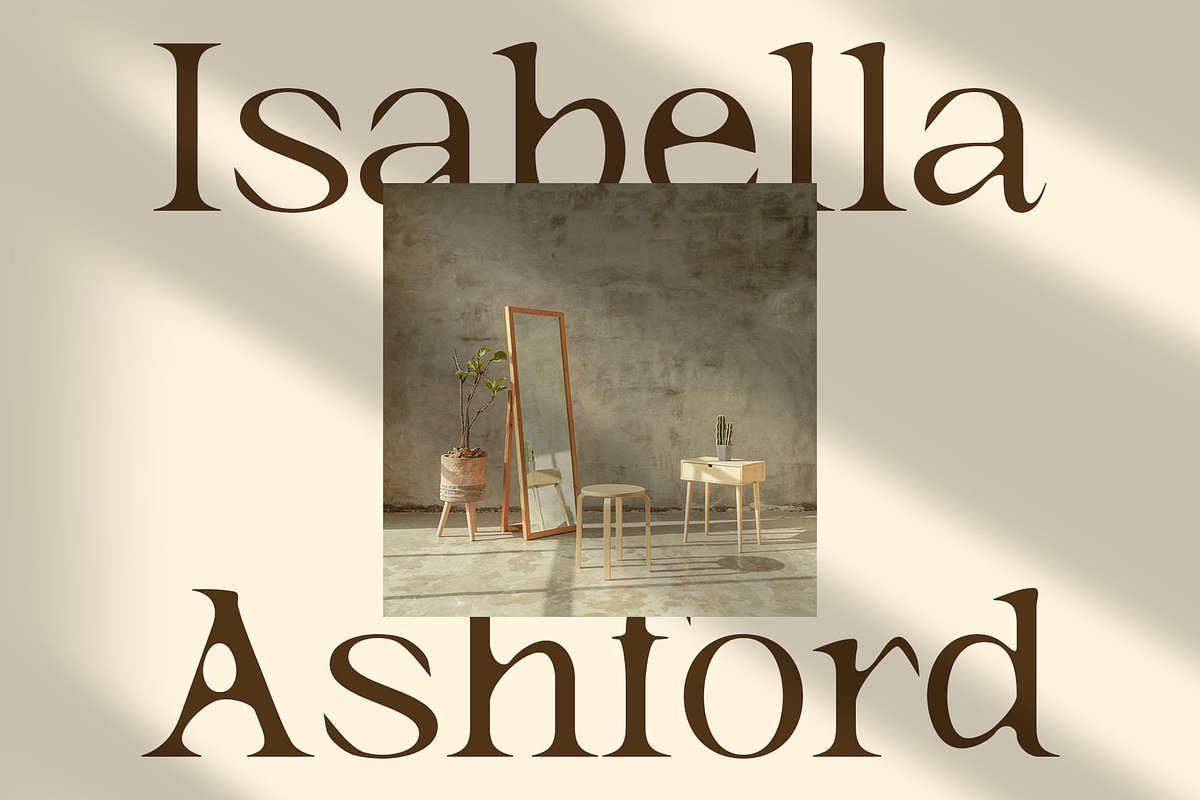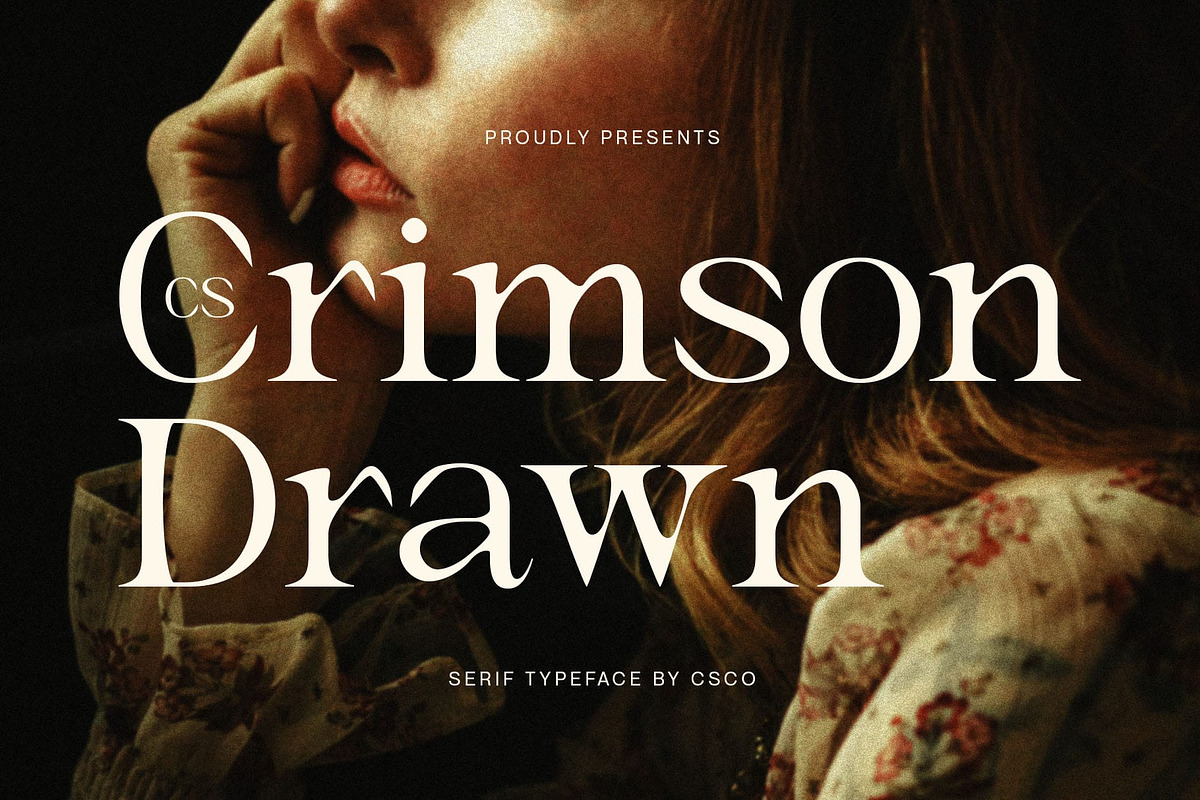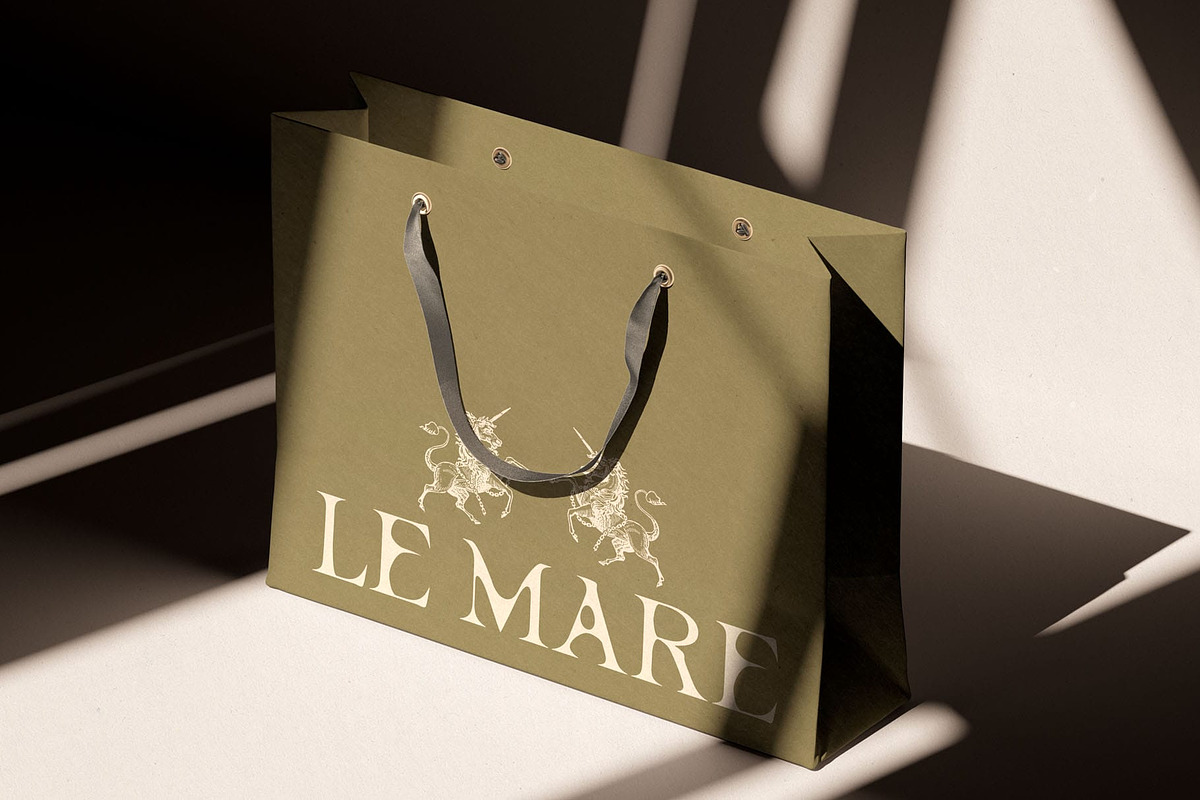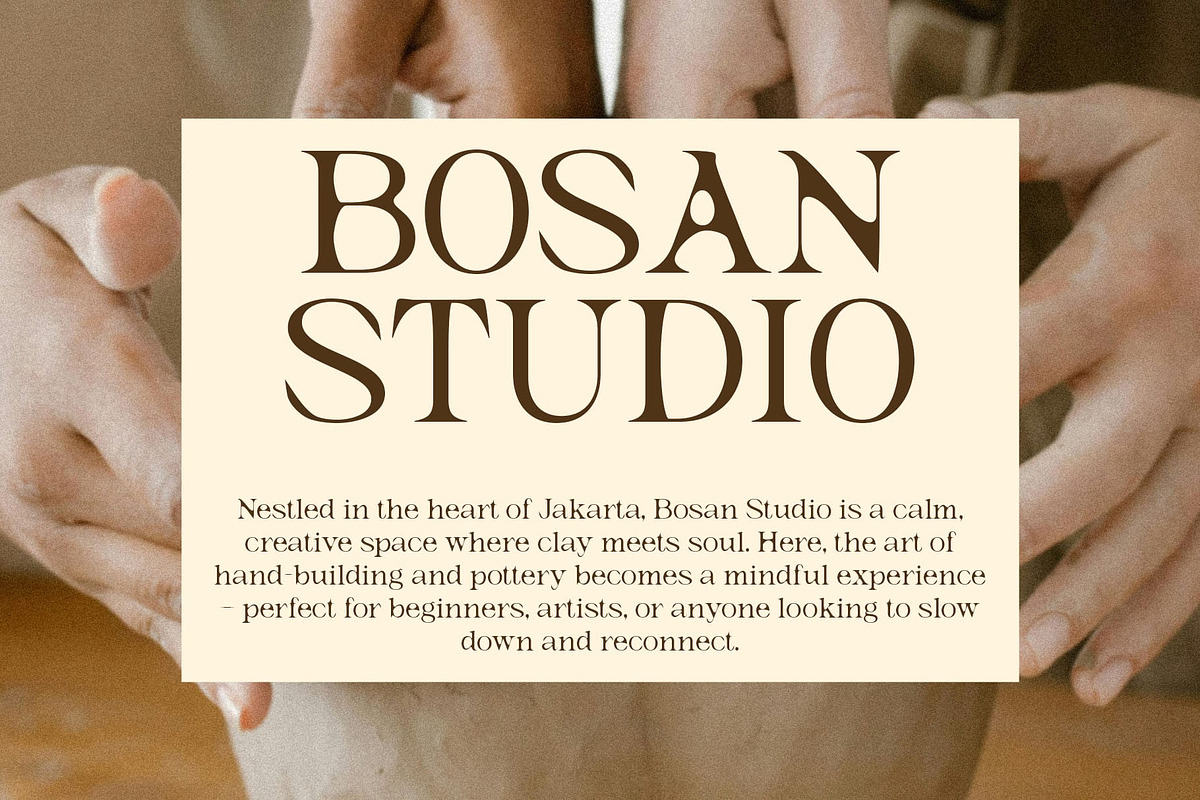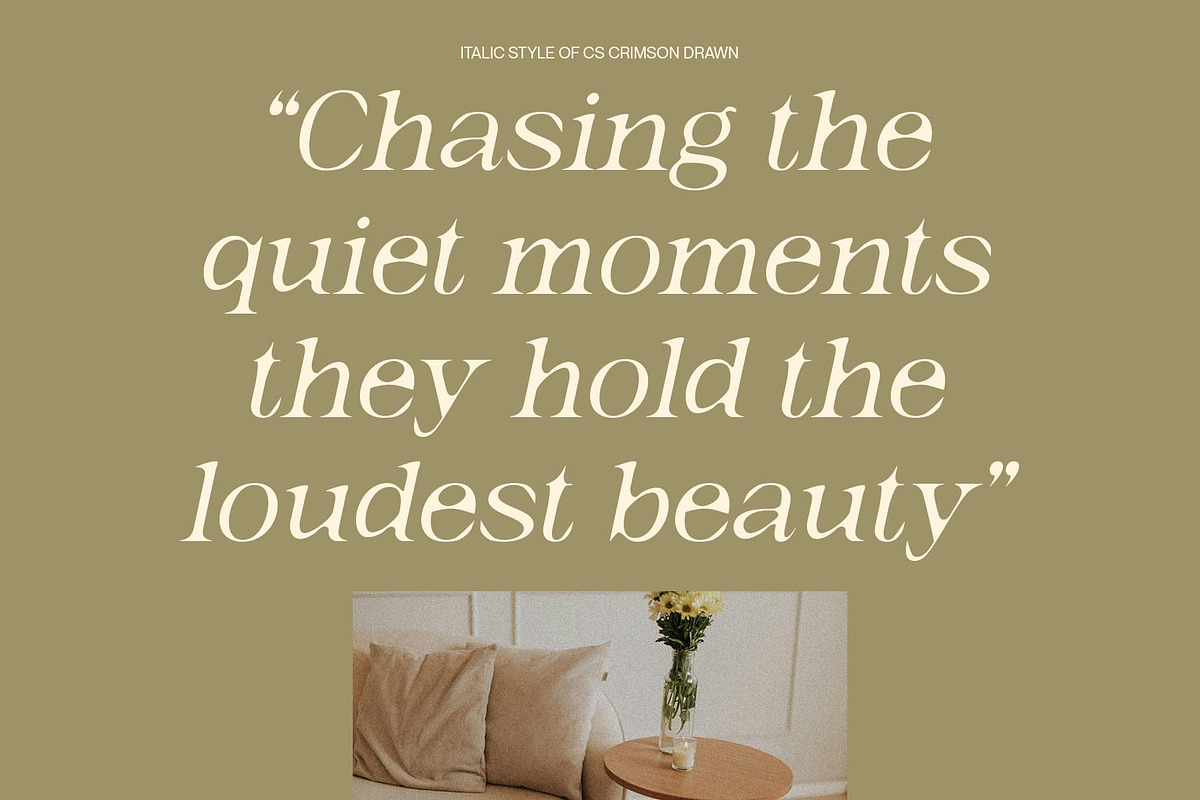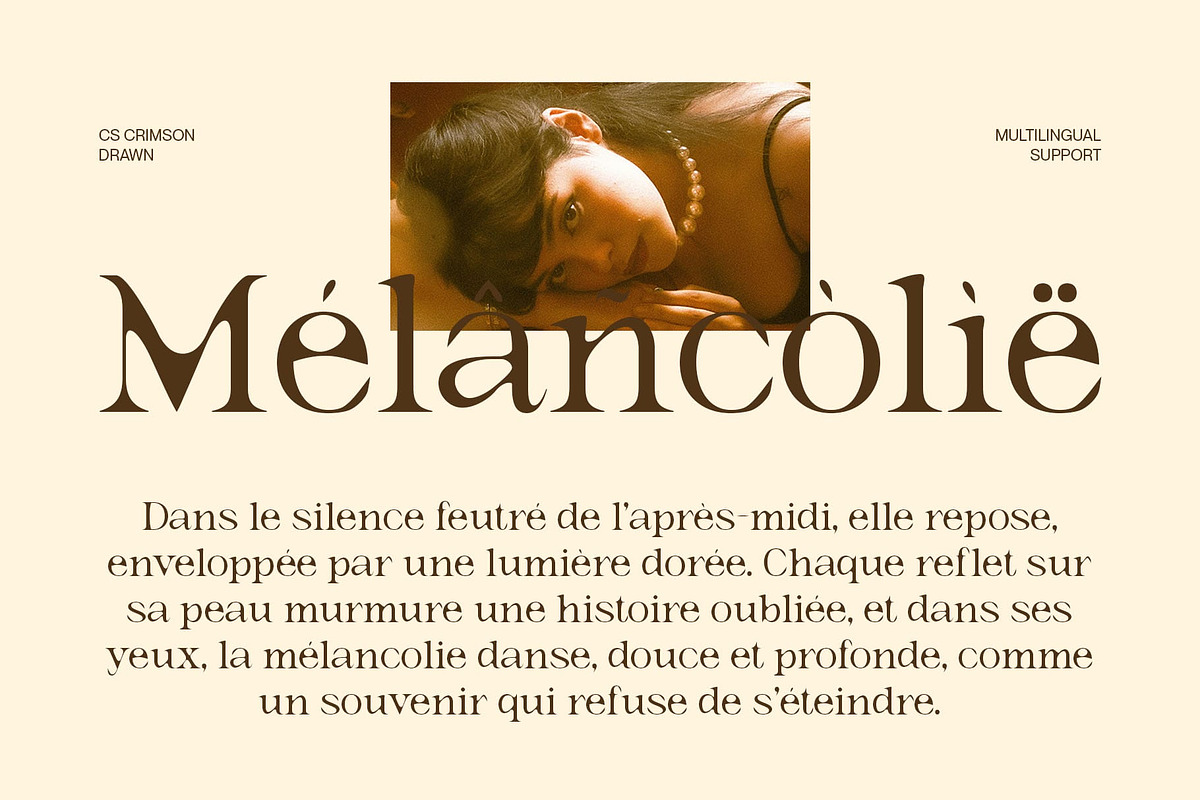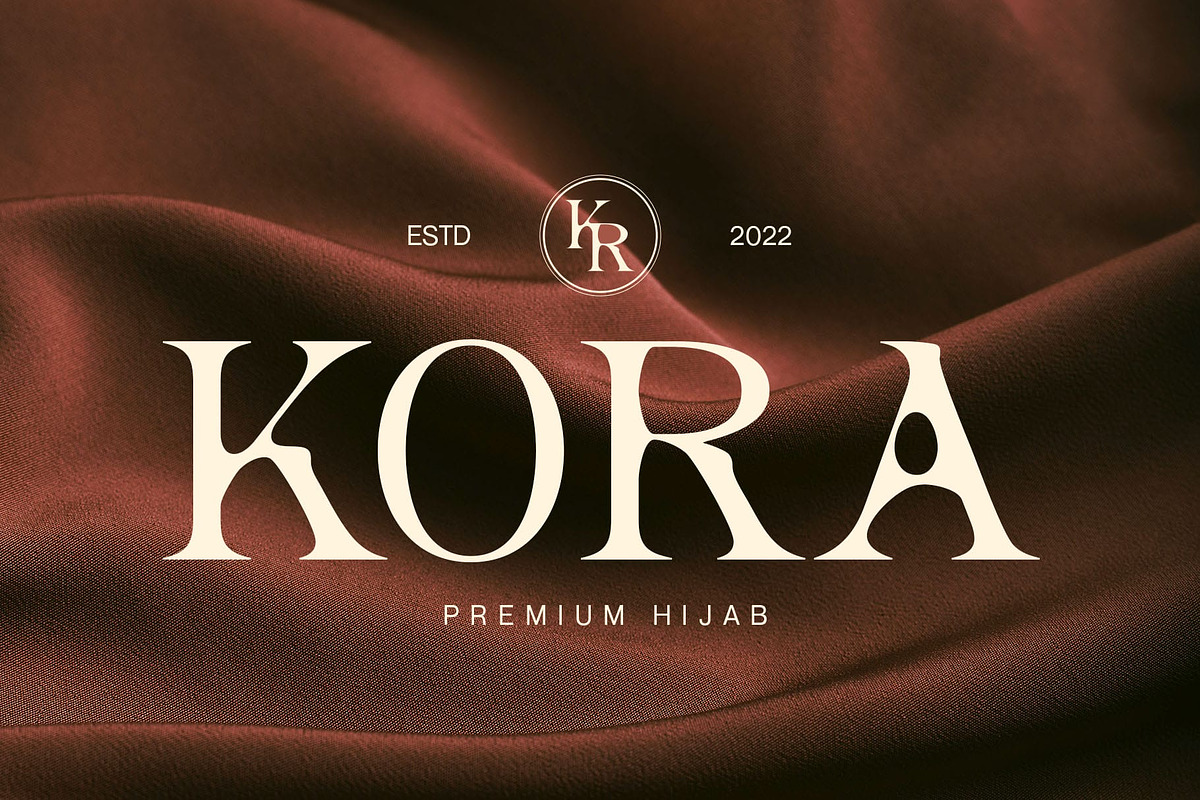
CS Crimson Drawn
CS Crimson Drawn – Elegant, Artistic, and Timeless
Classic Elegance with a Personal Edge CS Crimson Drawn is a modern display serif that harmoniously blends clean, slim classic letterforms with a graceful, timeless aesthetic. Its structure is rooted in tradition, yet it feels refreshingly current—thanks to its sleek proportions and well-balanced details.
Softened by Hand, Defined by Style The addition of a drawn effect introduces a delicate layer of organic texture and personality, lending the font a refined, handcrafted charm. This subtle irregularity softens the sharpness of its serifs, making each letter feel more artistic, personal, and visually unique, while maintaining an overall professional polish.
Perfect for Elegant and High-End Design This refined and timeless font is ideal for design work that calls for refinement, grace, and sophistication. It’s a natural fit for luxury branding, fashion editorials, high-end packaging, invitations, and creative studio projects that demand a font with both style and substance. It works beautifully in headlines, logos, and display compositions that aim to evoke emotion, taste, and trust.
Refined Typography for Elevated Visual Identity Whether you’re designing for a boutique brand, a modern wedding concept, or a premium product launch, this classic font provides the perfect balance of classic beauty and contemporary artistry. It speaks to audiences who value detail, craftsmanship, and a sense of exclusivity in visual storytelling.